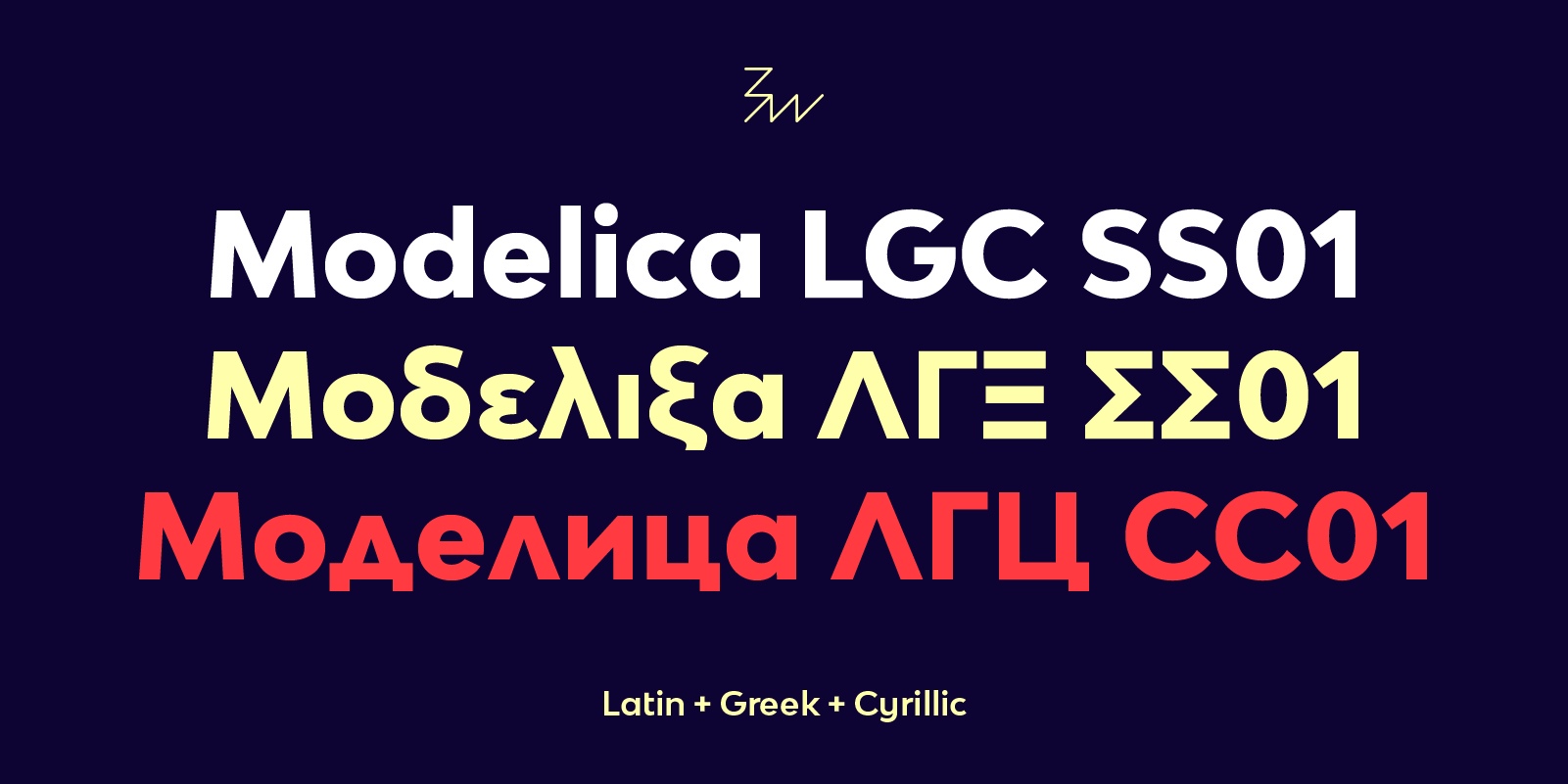
Bw Modelica LGC SS01 Font
Bw Modelica LGC SS01 Font is perfect for contemporary corporate branding, sophisticated web design, professional presentations, elegant marketing materials, refined app interfaces, premium packaging design, distinguished business communications, modern editorial layouts, sleek logo design, and cutting-edge digital platforms.
What makes Bw Modelica LGC SS01 Font so exciting is its geometric precision that combines mathematical accuracy with humanist warmth, creating typography that communicates both technical excellence and approachable professionalism. This sophisticated sans-serif typeface embodies contemporary design intelligence and functional beauty, delivering visual communication that builds trust while maintaining modern elegance.
The Bw Modelica LGC SS01 Font family includes comprehensive weight variations, stylistic alternates, and geometric design features that provide designers with extensive tools for creating distinctive and memorable typography that represents the perfect balance between systematic precision and human accessibility.
The precisely crafted letterforms of Bw Modelica LGC SS01 Font showcase geometric elegance with contemporary character that creates instant recognition of professional quality and design sophistication. Each character displays meticulous attention to maintaining the systematic precision that defines geometric excellence while ensuring superior readability and professional versatility. The font's mathematical construction and intelligent spacing contribute to its sophisticated appearance and contemporary appeal.
Design-conscious brands and professional organizations consistently choose Bw Modelica LGC SS01 Font for projects requiring geometric sophistication and contemporary authority. The comprehensive character set includes uppercase and lowercase letters, numerals, extensive punctuation, international accents, and geometric elements that provide complete support for professional branding applications and sophisticated design compositions.
The systematic versatility of Bw Modelica LGC SS01 Font ensures exceptional performance across both traditional print and modern digital platforms. Whether developing professional brand identities, creating sophisticated marketing campaigns, or designing contemporary corporate materials, this remarkable typeface delivers consistent precision that resonates with audiences seeking reliability, innovation, and geometric elegance.